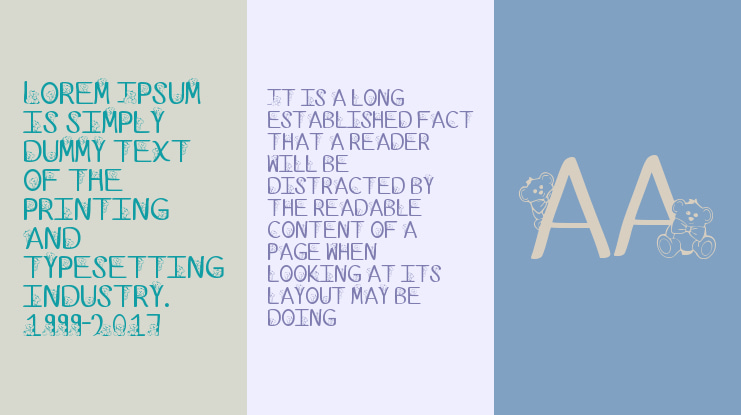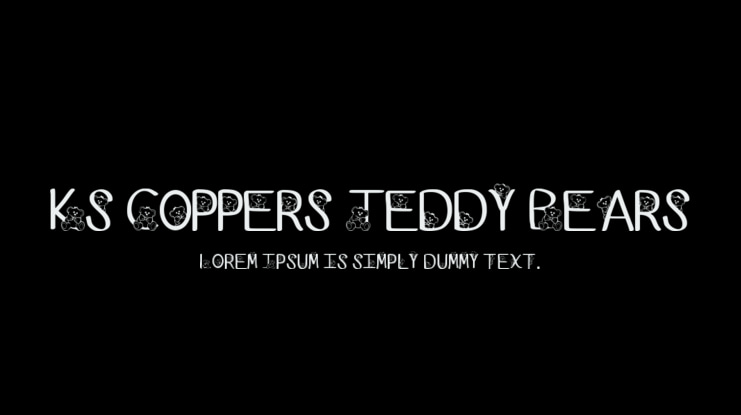
Ks Coppers Teddy Bears Font
This font is upper and lowercase letters, both upper and lowercase are the same but the bears are different.
Uppercase shows the full bear, Lower case shows partial bears.